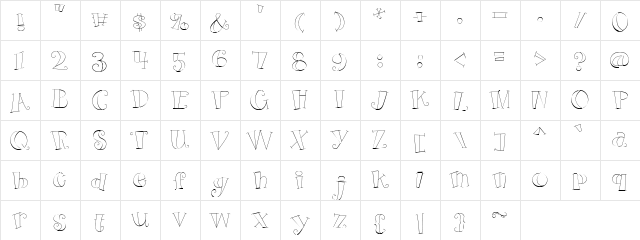
Lettering Delights Regular
Design Context for Lettering Delights Typeface
Lettering Delights is a composed and adaptable typeface that performs quietly and consistently across a wide range of design contexts. Its slender proportions lend an understated elegance to any composition.